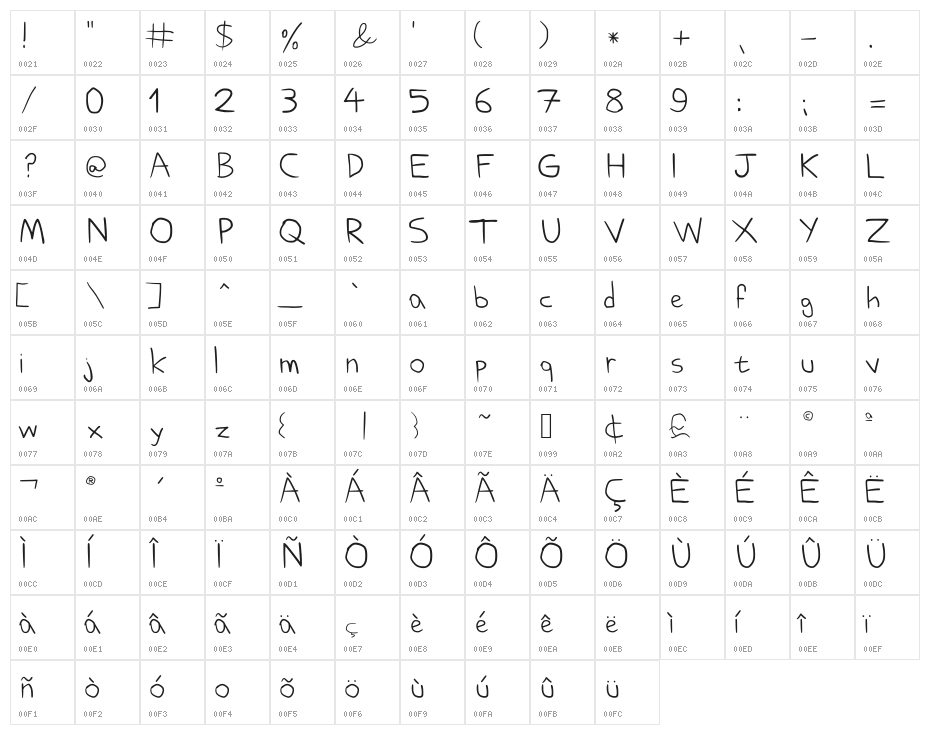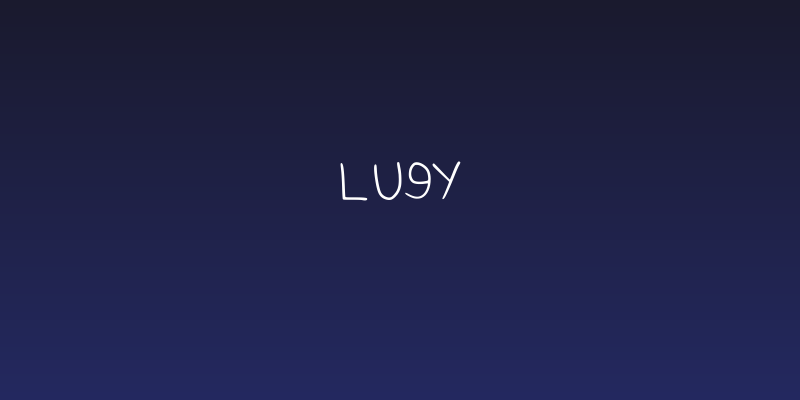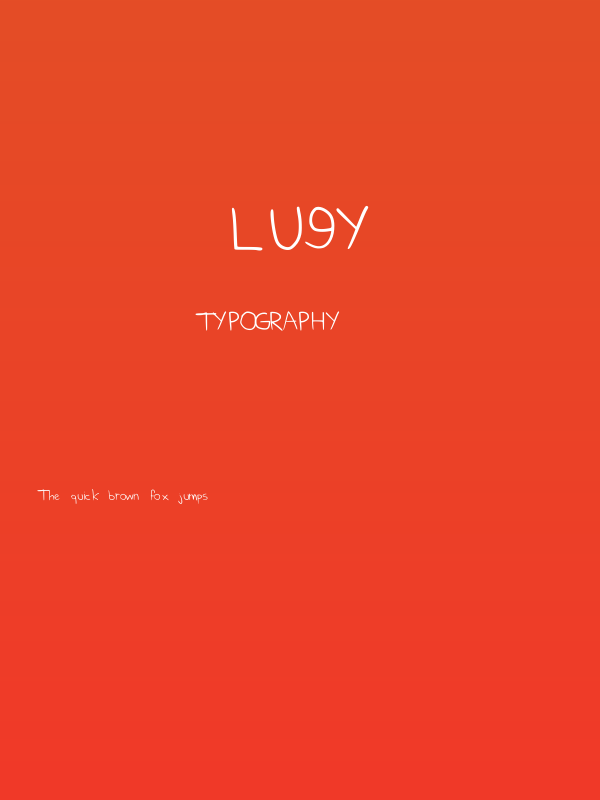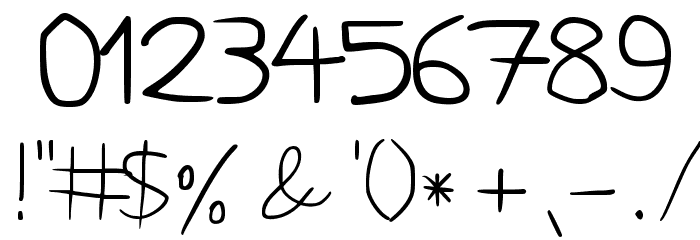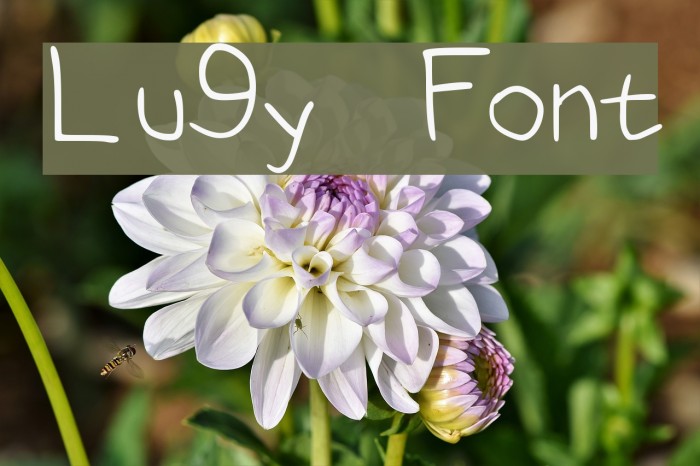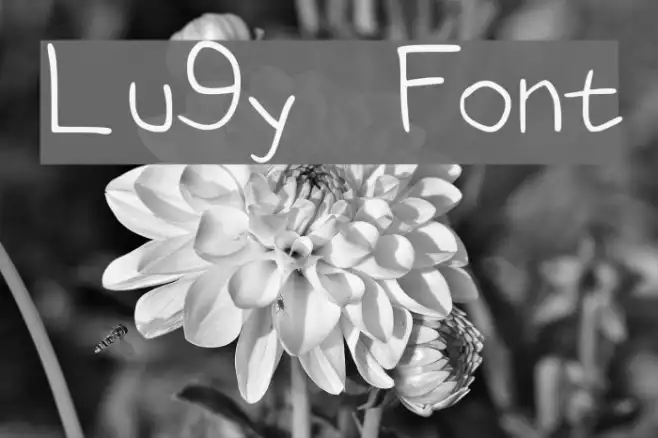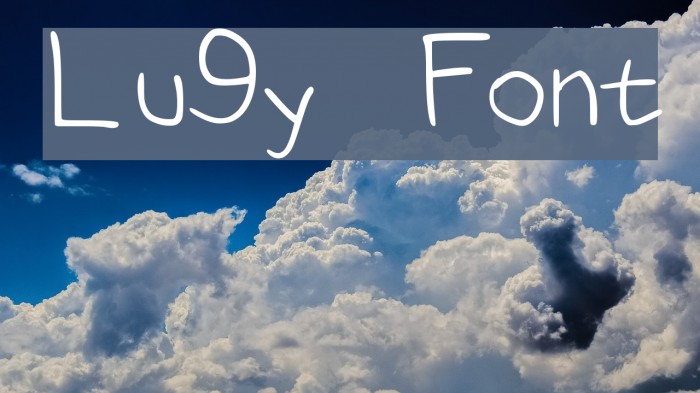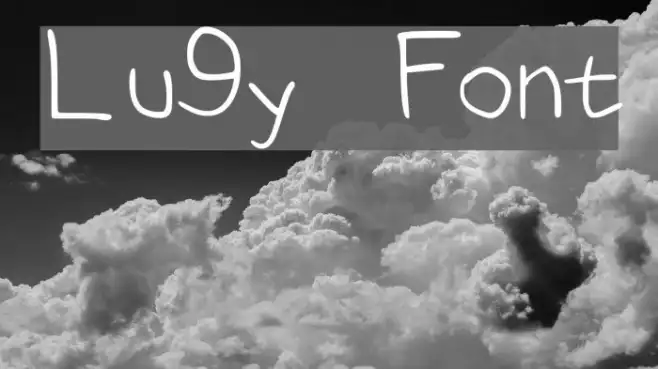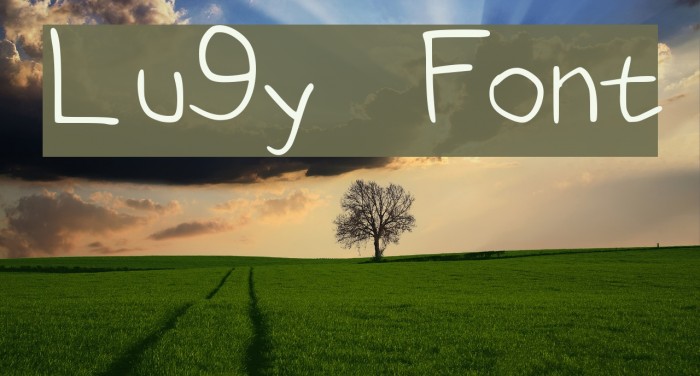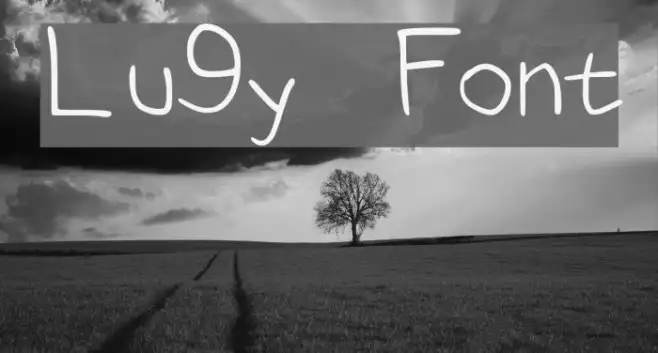
Lu9y Font
Lu9y Description
This font features a playful and informal handwritten style, characterized by its irregular strokes and casual appearance. The letters have a slightly uneven baseline, adding to the whimsical and approachable feel. The uppercase and lowercase letters maintain a consistent style, with rounded edges and a friendly demeanor. The numerals and special characters follow the same design principles, ensuring a cohesive look across all glyphs. This font is perfect for projects that require a personal touch or a fun, lighthearted vibe.
| Proposed Projects | Ideal for children's books, greeting cards, personal blogs, and playful branding. |